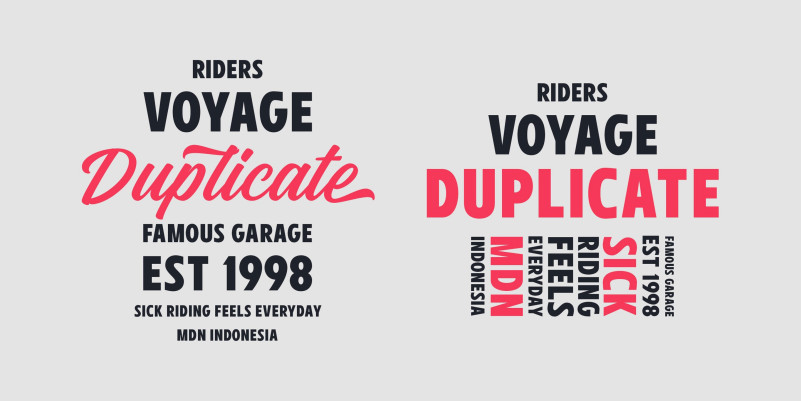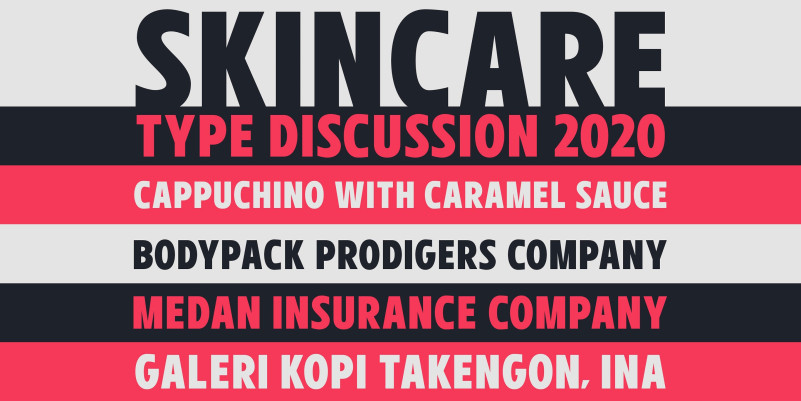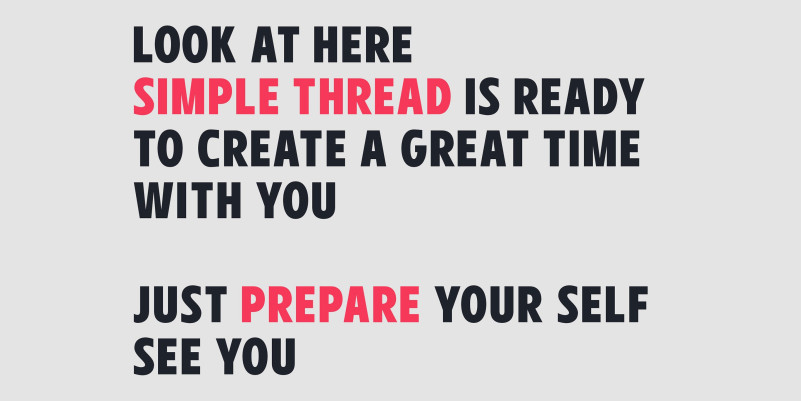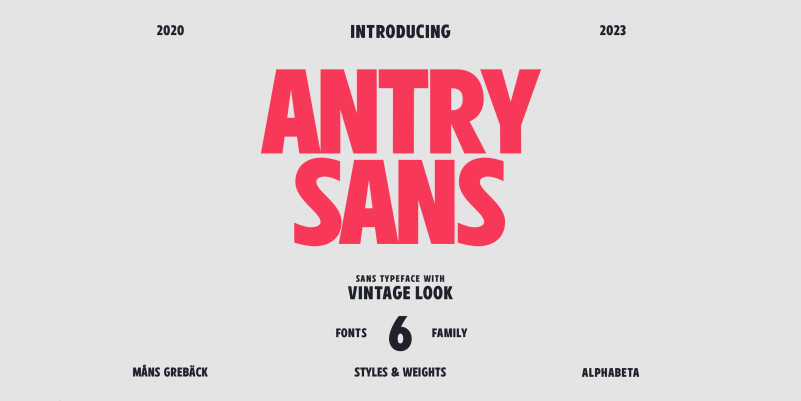
Antry Sans Font
Antry Sans Font is a simply condensed strong sans serif typeface. With heavy letterforms in a sturdy appearance, this poster font gets attention while keeping clean. It is legible and clean, optimized for a non-complex design or headline. The Antry Sans font family consists of Thin, Regular and Bold, and each weight as Italic, totalling in six styles. The font is built with advanced OpenType functionality and has a guaranteed top-notch quality, containing stylistic and contextual alternates, ligatures and more features; all to give you full control and customizability. It has extensive lingual support, covering all Latin-based languages, from Northern Europe to South Africa, from America to South-East Asia. It contains all characters and symbols you’ll ever need, including all punctuation and numbers.